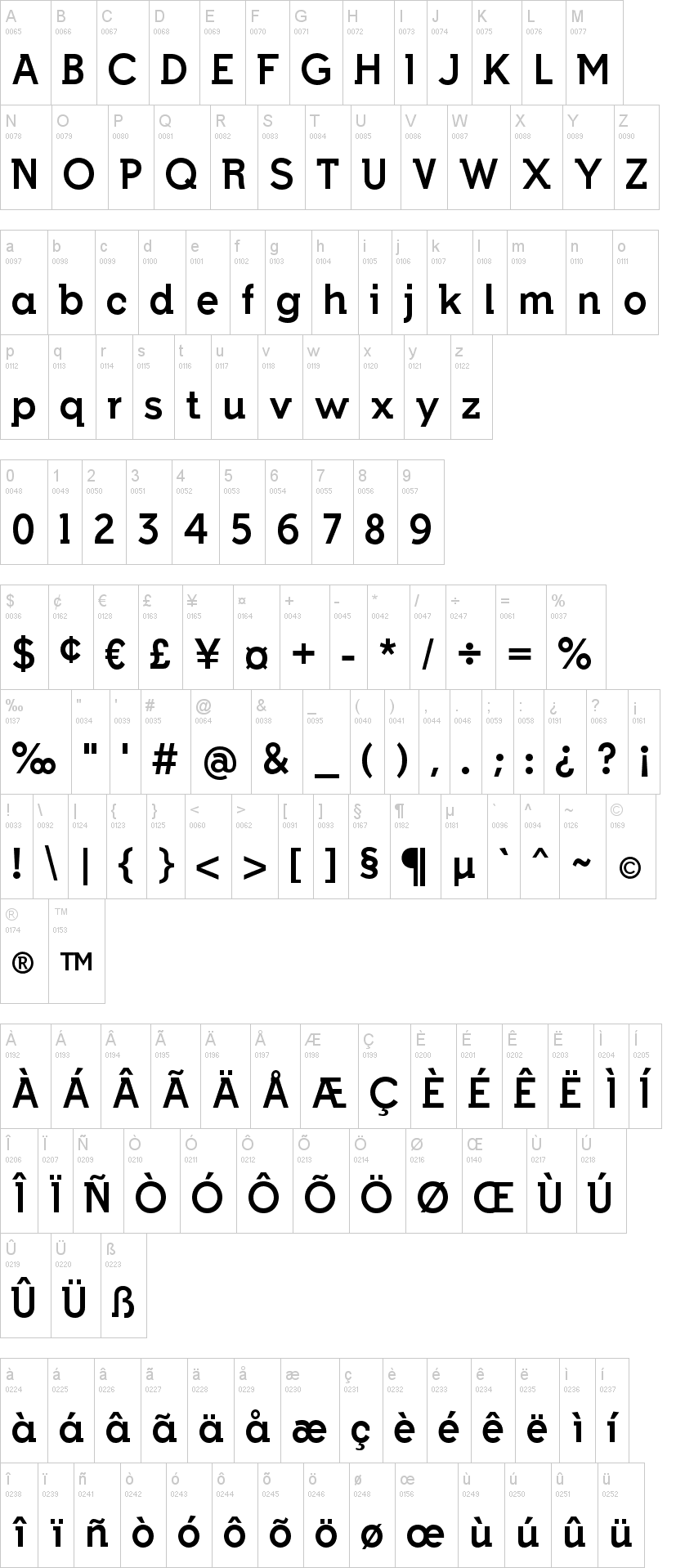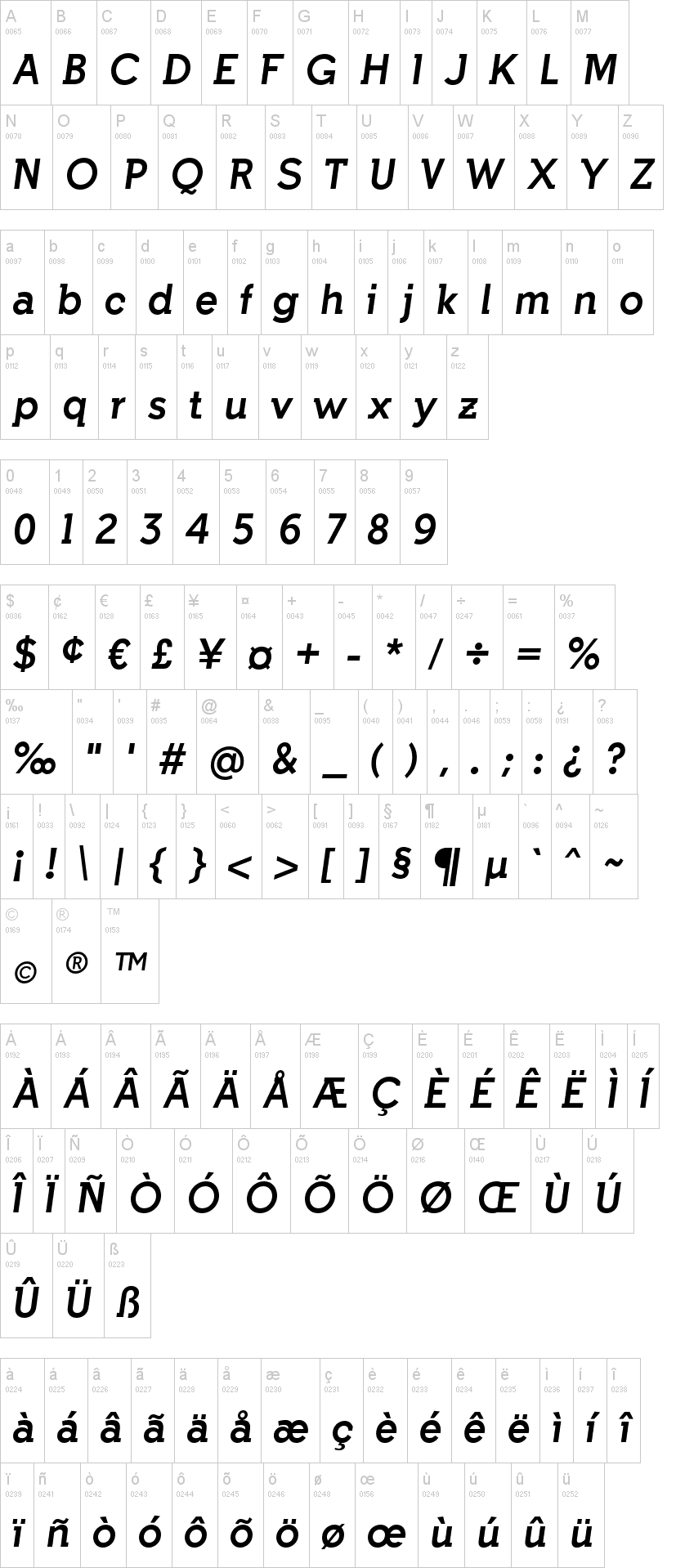
Indulta-SemiSerif-Bold-Italic-FFP.otfNote of the authorSemiSerif Fonts made especially for publishing or advertising graphic design, excellent readability and use.